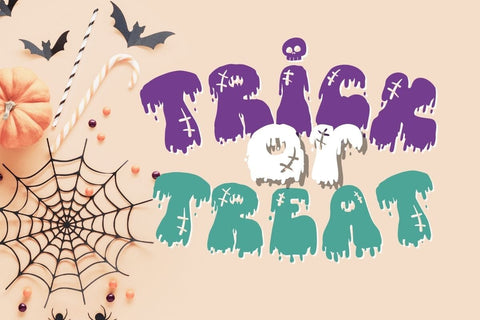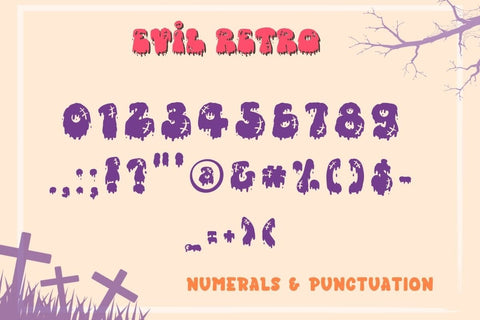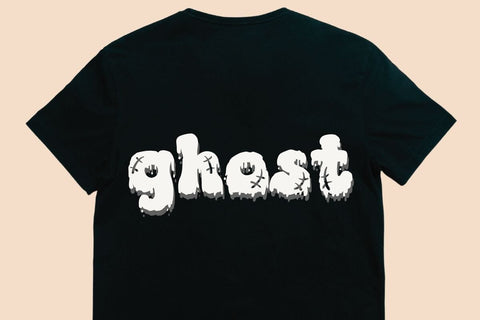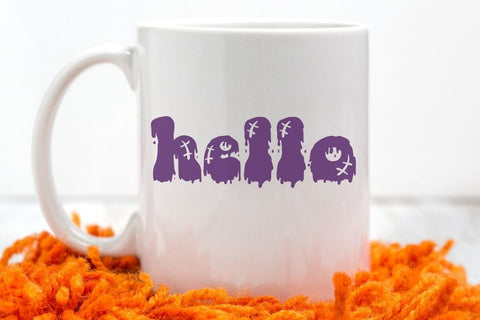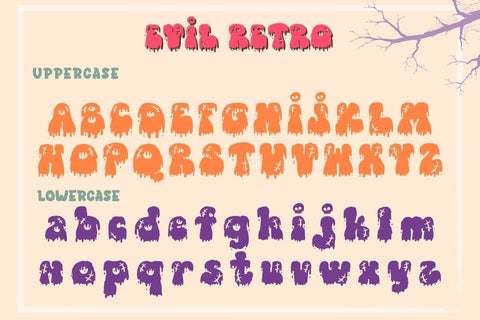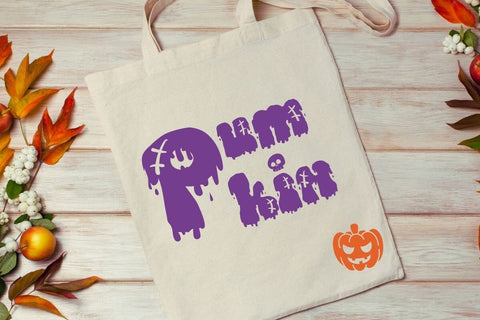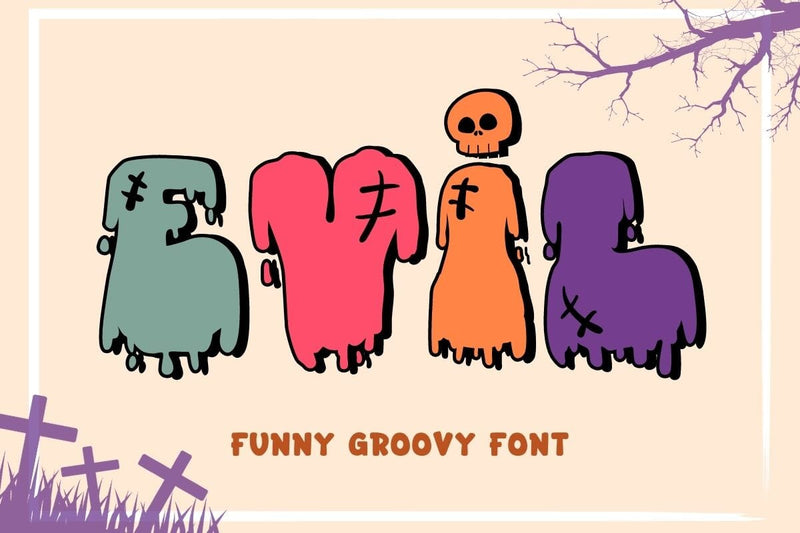
Evil - Fun Display Font
Evil is a Groovy Display font. The font style resembles a drop of blood, which is perfect for all your Halloween or horror-themed projects. Or use it to design products such as banners, content, mugs, cards, shirts, stationery, social media posts, and more!